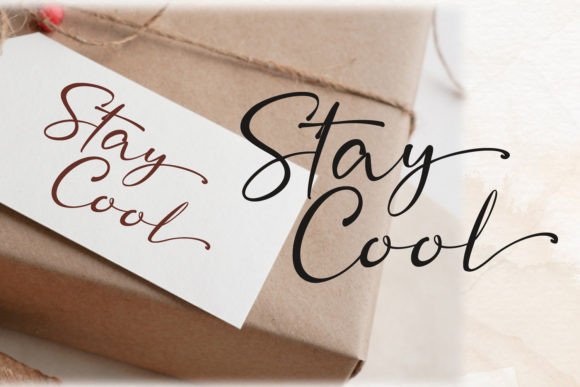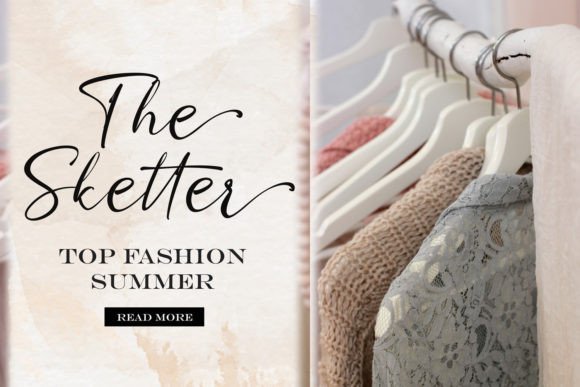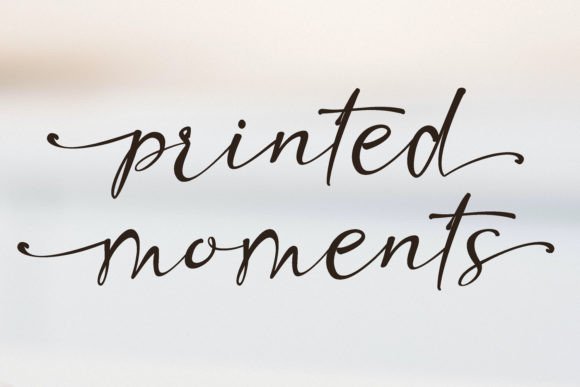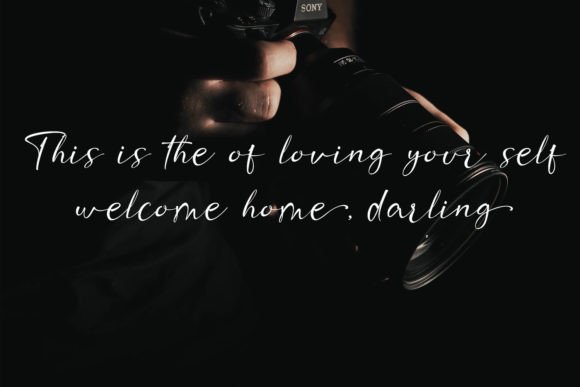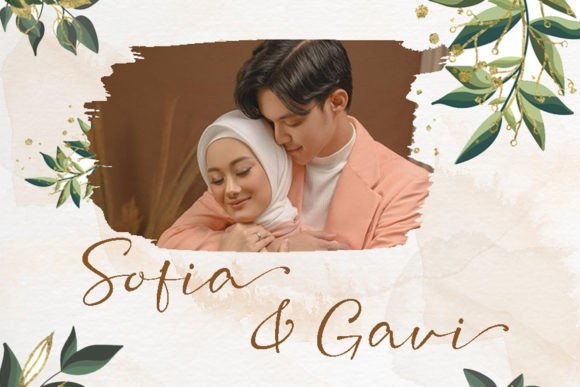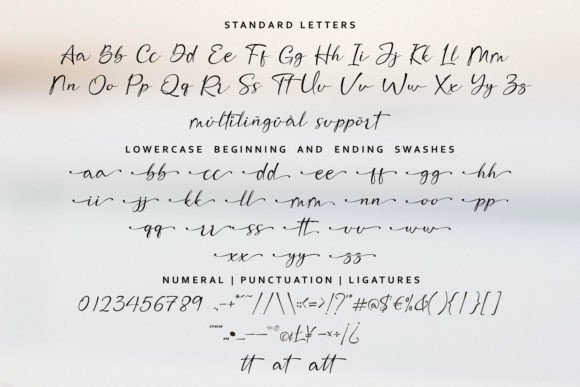
Fifa Cup Font
Fifa Cup Font: Stylish Modern Calligraphy for Elegant Designs
Fifa Cup Font is a stylish modern calligraphy typeface that brings a casual yet chic flair to your creative projects. This font is perfect for branding, wedding invitations, greeting cards, and even elegant labels such as those for red wine bottles. Its flowing strokes and smooth curves create a polished and sophisticated look, making your designs stand out beautifully.
Versatile Uses of Fifa Cup Font
This font fits a broad range of creative needs, including:
• Branding and corporate identity
• Wedding and event invitations
• Product packaging and elegant labels
• Social media graphics and promotional materials
• Posters, flyers, and more
Thanks to its modern calligraphy style, Fifa Cup Font adds a blend of elegance and contemporary style to all your projects.
Fifa CupFont’s PUA encoding ensures seamless access to all its beautiful glyphs and stylistic alternates. It features balanced kerning and clear spacing, ensuring that your text is always readable and visually appealing, regardless of size or medium.
Why Choose Fifa Cup Font?
Designers choose Fifa CupFont for its unique blend of casual chic and timeless elegance. It adds personality and professionalism to any project, helping you create memorable and beautiful designs. Use Fifa CupFont to bring sophistication and charm to your next creative idea.